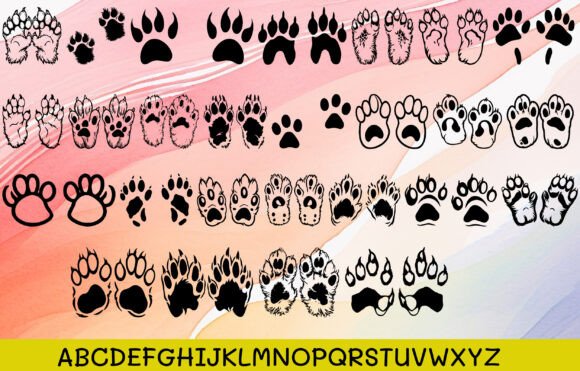
Introducing Cat Paws Love Font: A Whimsical Dingbat Font for Designers and Crafters
Are you a designer or crafter looking for a unique and playful font to add a touch of personality to your creative projects? Look no further than the Cat Paws Love Font, a delightful set of 26 star-inspired paw designs that are sure to capture the hearts of cat lovers and crafty enthusiasts alike.
What is Cat Paws Love Font?
Cat Paws Love Font is a dingbat font that features 26 unique paw designs, each corresponding to a letter from A to Z. These adorable designs are perfect for adding a touch of whimsy and charm to your creative projects, whether you’re a designer, crafter, or simply a cat lover. The font is available in both OTF and TTF file formats, making it easy to use with your favorite design software.
Key Features of Cat Paws Love Font
- 26 Unique Designs: Each letter from A to Z features a unique star-inspired paw design, perfect for adding a touch of personality to your projects.
- Perfect for Crafting and Decorating: The Cat Paws Love Font is perfect for crafters and designers who want to add a playful, love-filled charm to their projects.
Uses for Cat Paws Love Font
The Cat Paws Love Font is perfect for a variety of creative projects, including:
- Crafting: Use the font to add a personal touch to your crafting projects, such as scrapbooking, card making, and DIY gifts.
- Graphic Design: The font is perfect for designers who want to add a playful touch to their designs, such as logos, brochures, and social media graphics.
- Paper Crafting: Use the font to create custom paper crafts, such as paper flowers, gift tags, and invitations.
Tips for Using Cat Paws Love Font
Here are a few tips for using the Cat Paws Love Font in your creative projects:
- Experiment with Different Sizes: Try using the font in different sizes to create a variety of effects, from subtle to bold.
- Combine with Other Fonts: Combine the Cat Paws Love Font with other fonts to create a unique and eye-catching design.
- Use for Headers and Titles: Use the font to create eye-catching headers and titles for your projects, such as blog posts, social media graphics, and flyers.
Why Choose Cat Paws Love Font?
Here are just a few reasons why you should choose the Cat Paws Love Font for your creative projects:
- Unique and Playful Designs: The font features unique and playful designs that are sure to capture the hearts of cat lovers and crafty enthusiasts alike.
- Perfect for a Variety of Projects: The font is perfect for a variety of creative projects, from crafting and graphic design to paper crafting and DIY gifts.
In conclusion, the Cat Paws Love Font is a delightful set of 26 star-inspired paw designs that are perfect for adding a touch of whimsy and charm to your creative projects. With its unique and playful designs, easy-to-use file formats, and versatility, this font is sure to be a favorite among designers, crafters, and cat lovers alike. So why wait? Download the Cat Paws Love Font today and start creating your own adorable and eye-catching designs!